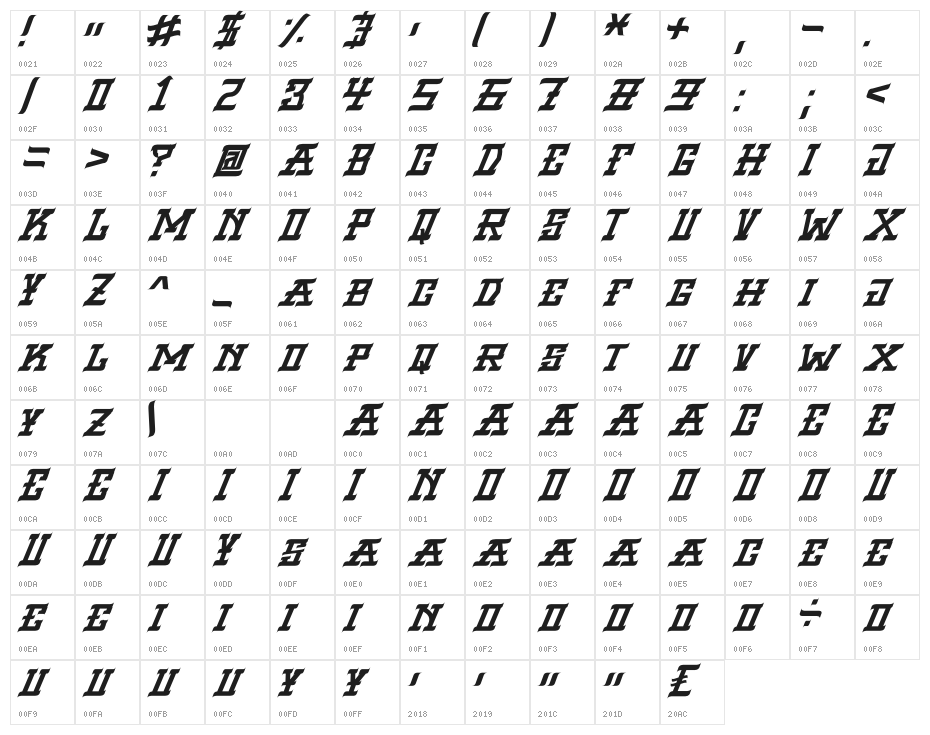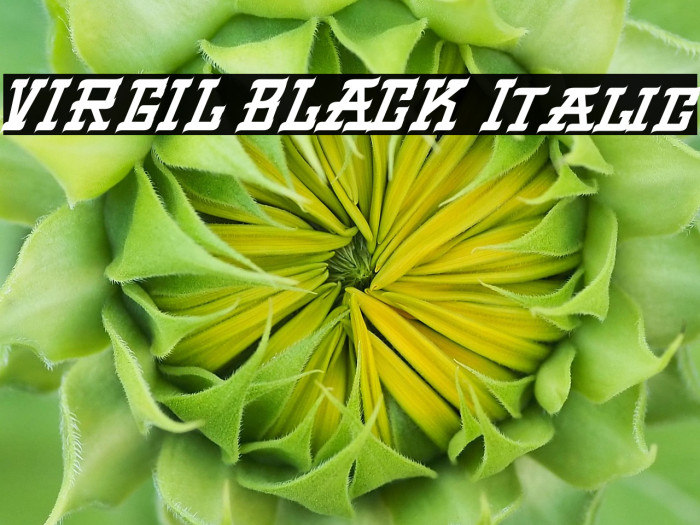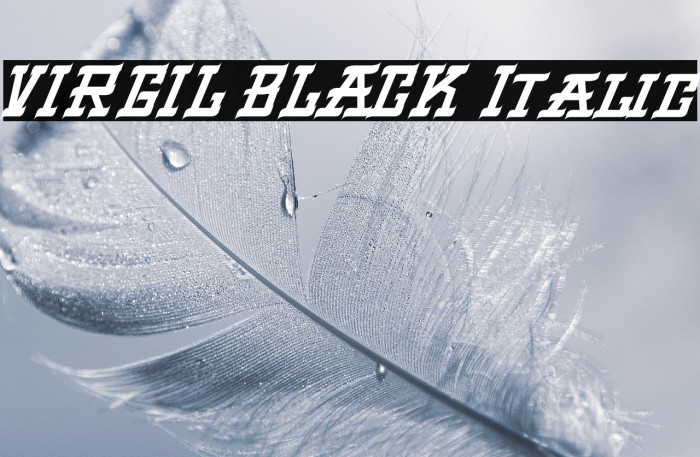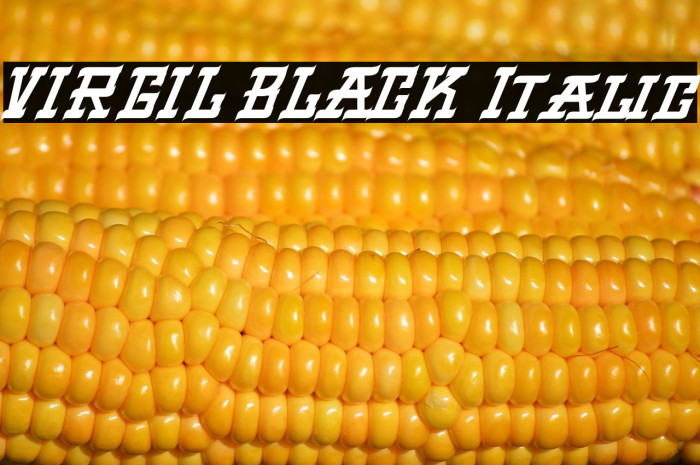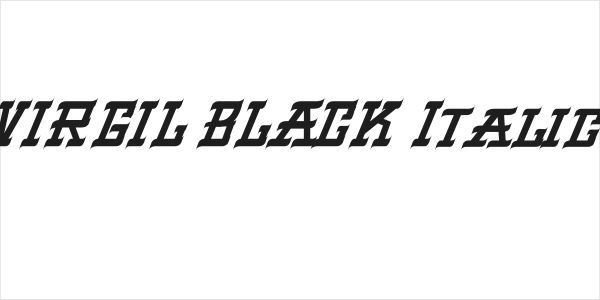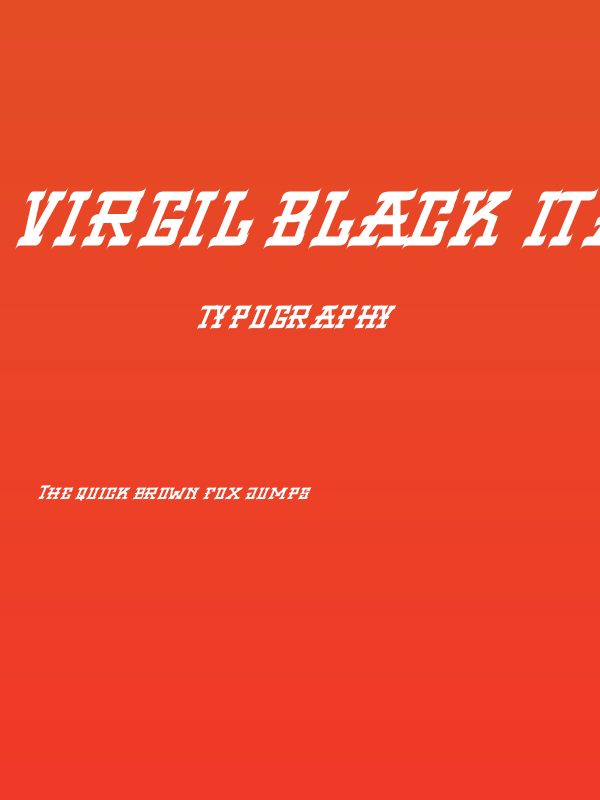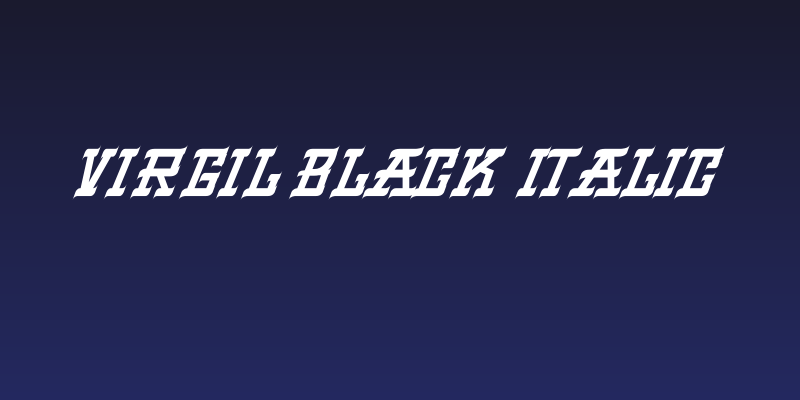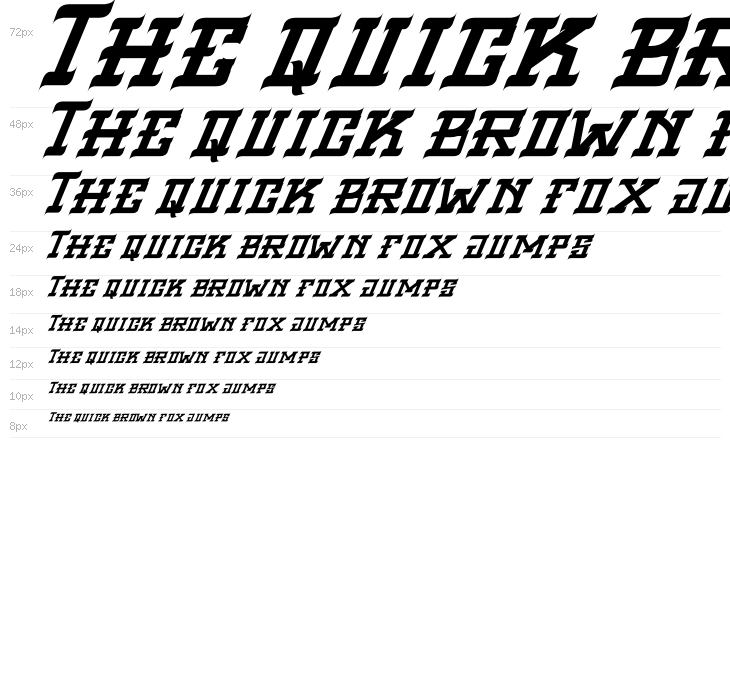
VIRGIL BLACK Italic Font
VIRGIL BLACK Italic Description
This font features a bold and dynamic style with a strong italic slant, giving it a sense of movement and urgency. The characters are robust and thick, with sharp angles and a slightly condensed form that enhances its striking appearance. The uppercase and lowercase letters maintain a consistent design, while the numerals and special characters integrate seamlessly into the overall aesthetic. The font's boldness and italic nature make it ideal for impactful headlines and attention-grabbing designs.